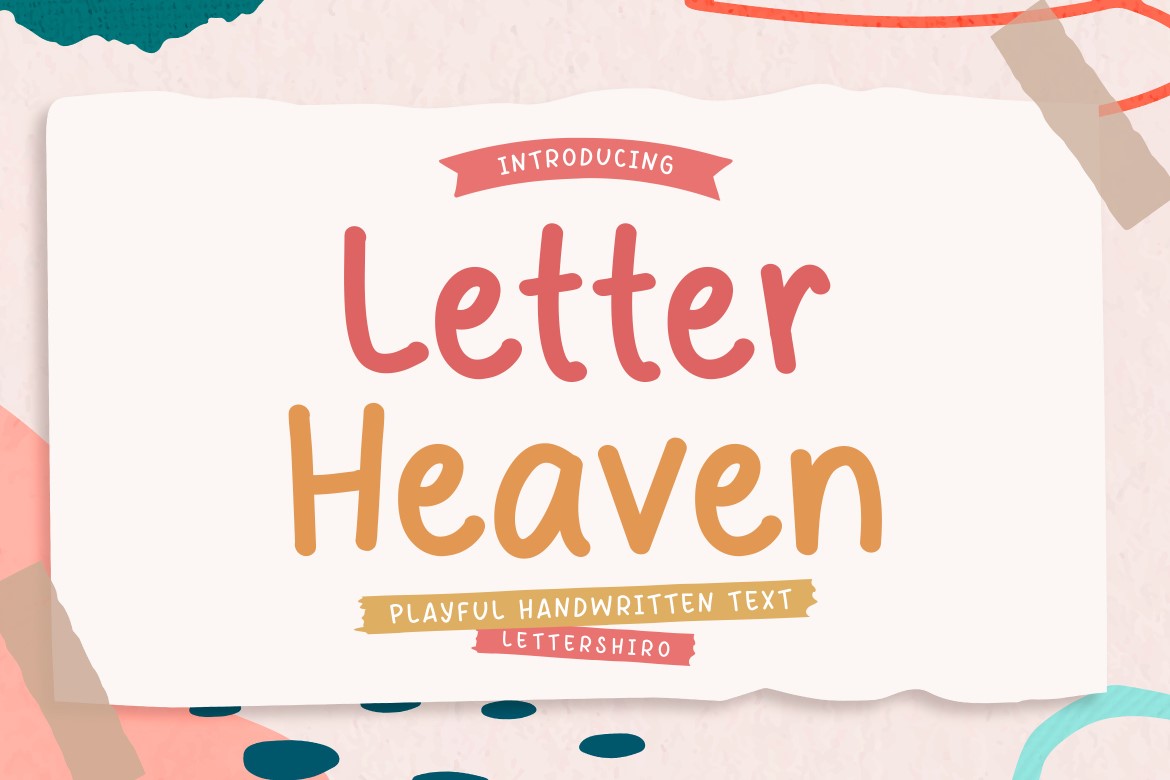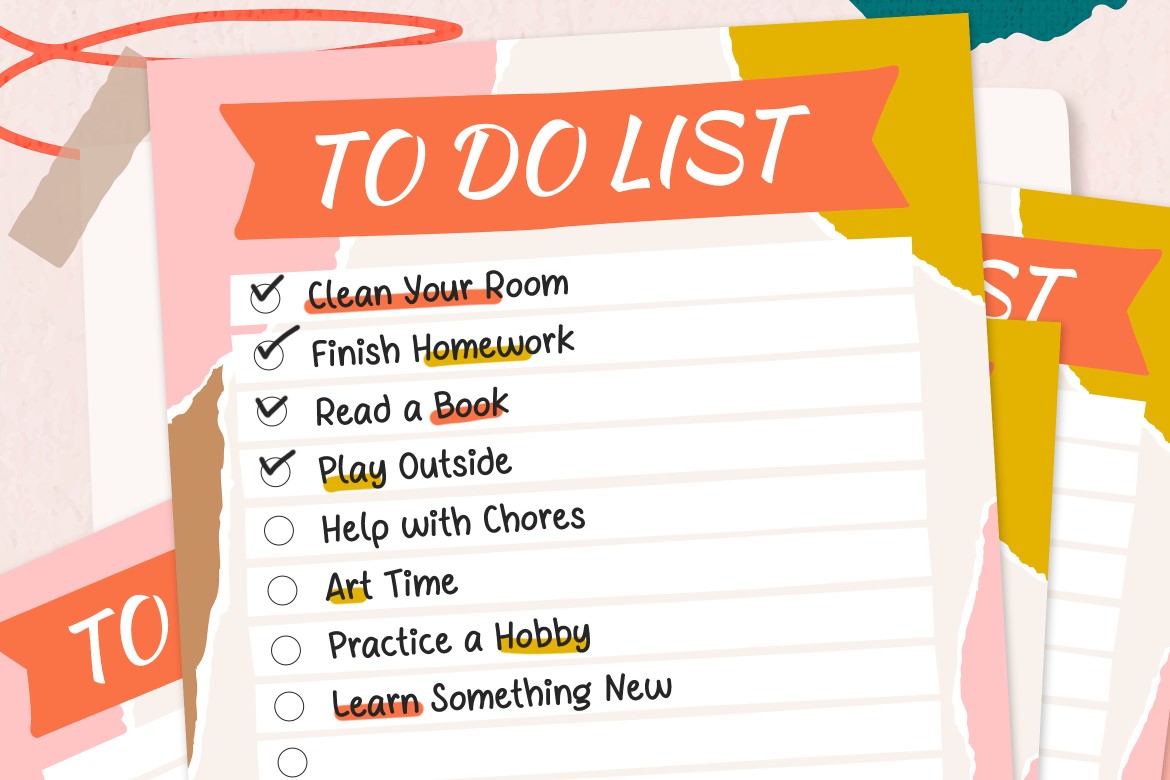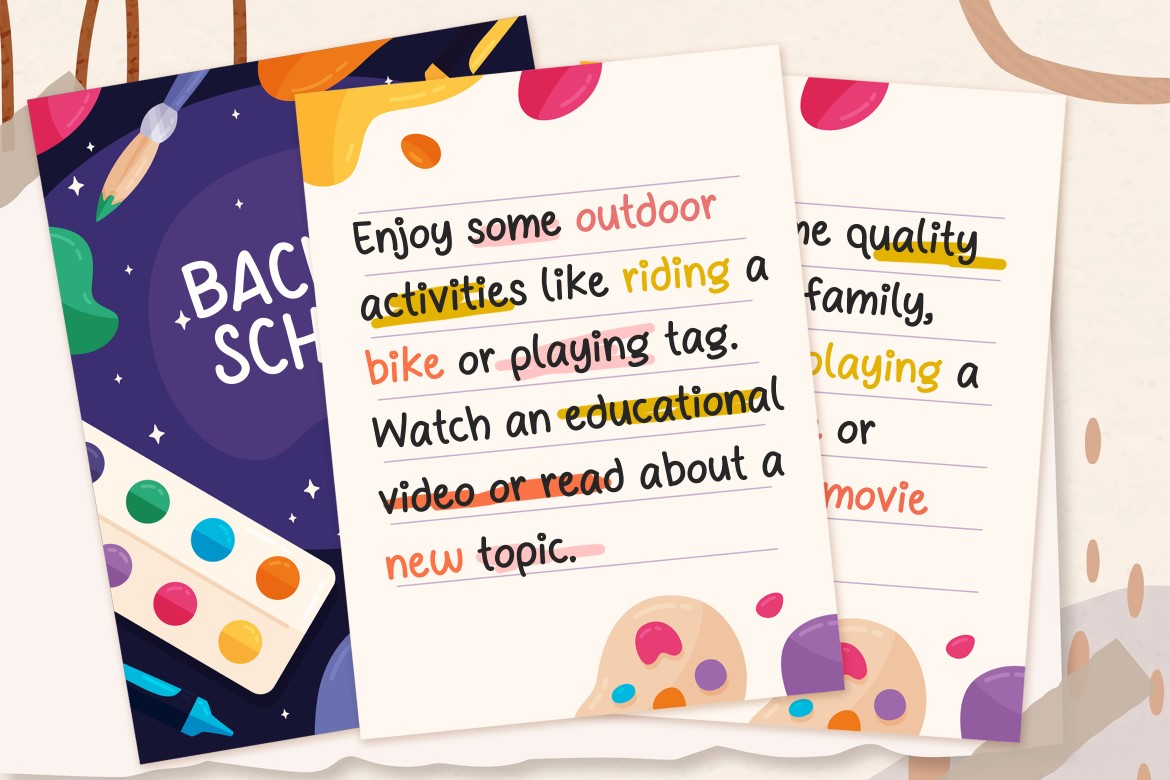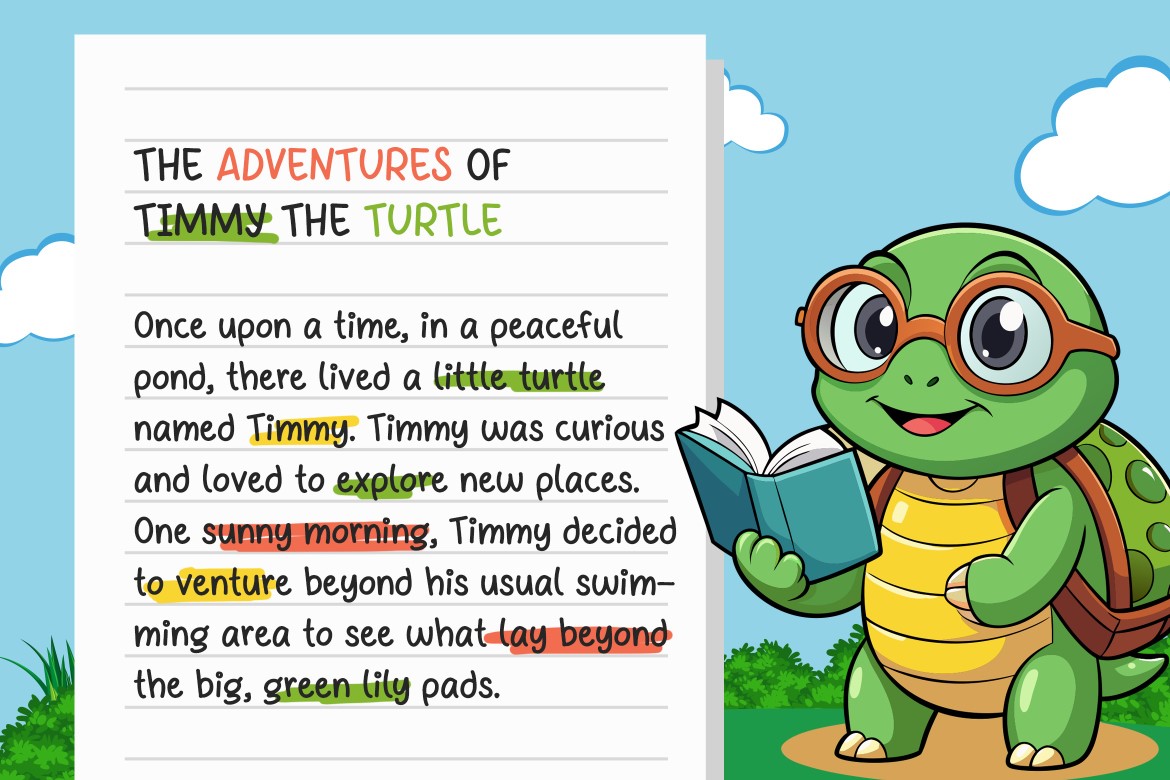
Letter Heaven - Casual Advertisement Font
Letter Heaven – Playful Handwritten Font
Letter Heaven is a cheerful and cozy handwritten font designed to add a touch of warmth and personality to your creative projects. With its casual, rounded letterforms and playful style, this font is perfect for teen novels, school posters, food menus, logos, and all things fun and friendly.
Whether you're crafting a storybook title, a café chalkboard, or a student event flyer, Letter Heaven makes your words feel inviting, joyful, and full of life.
Great for:
• Teen or children’s book covers
• School projects and classroom posters
• Food and drink menus
• Fun logos and branding
• Social media graphics and quotes
Designed by Lettersiro, this font brings the spirit of handwriting into every letter — like a little piece of heaven on your page.